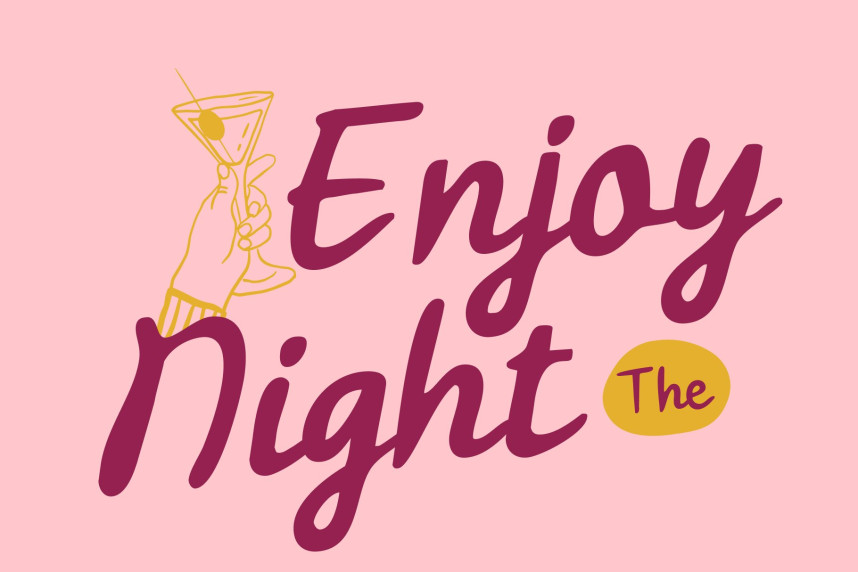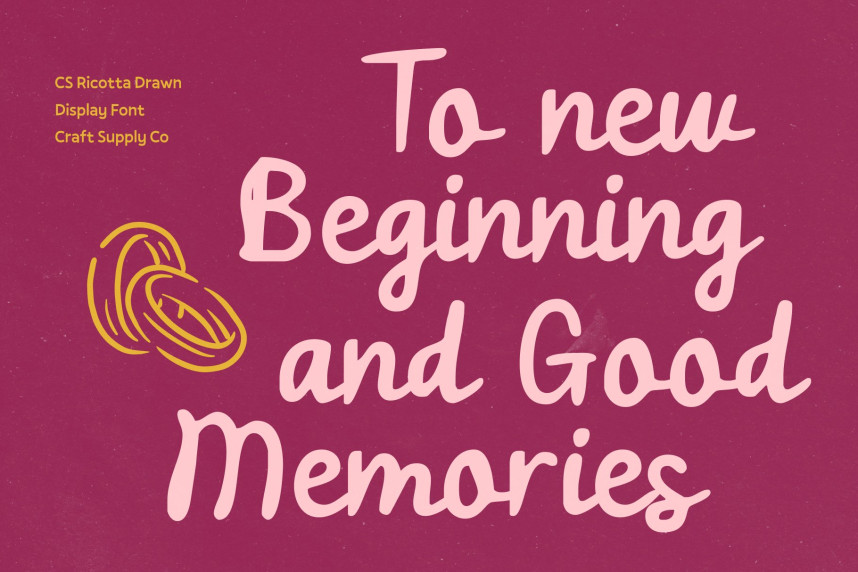
CS Ricotta Drawn Font
CS Ricotta Drawn Font – Handwritten Script Font with Romantic Curves Elegant, Flowing Hand-Drawn Design. This is a graceful, hand-drawn script font that captures the beauty of natural handwriting with a refined, polished finish. Its flowing curves and stylish strokes create a timeless, sophisticated aesthetic, perfect for projects that require elegance and charm.